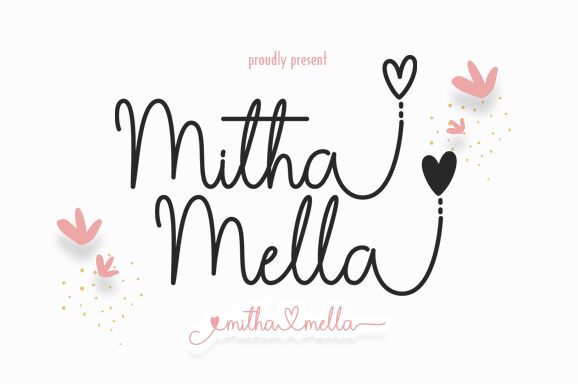
Mitha Mella, a delightful creation by Danar Nugroho, is a charming light-weight font that exudes cuteness in every stroke. Its playful and handwritten style adds a touch of whimsy to any project.
Whether you're designing children's books, greeting cards, or creating adorable graphics for social media, Mitha Mella is the perfect companion. Its gentle curves and soft lines create an inviting and friendly atmosphere that will capture the hearts of your audience.
Let this endearing font bring warmth and joy to your creative endeavors.